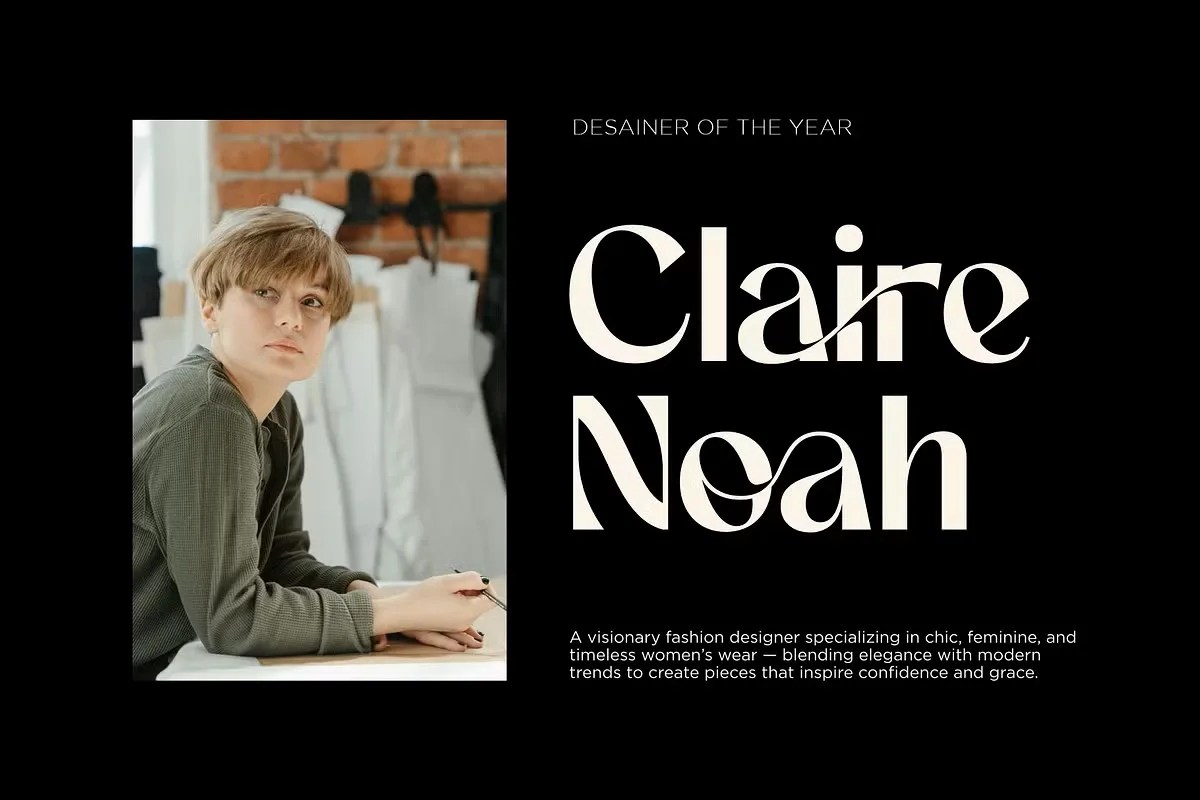
Ageia by LoneArmy is a modern sans serif font designed with a sleek and minimalist style. Featuring clean lines and balanced proportions, this typeface is perfect for creating professional and contemporary designs with clarity and elegance.
Ideal for logos, branding, headlines, posters, packaging, and digital content, Ageia offers a versatile look that adapts seamlessly to both print and screen. Its modern geometry and subtle details make it a reliable choice for creative projects that demand simplicity and impact.
• Modern sans serif style
• Clean, sharp, and minimal look
• Great for logos & branding
• Perfect for professional presentations
• Suitable for packaging & posters
• Optimized for both print & digital use
• Highly legible & versatile design